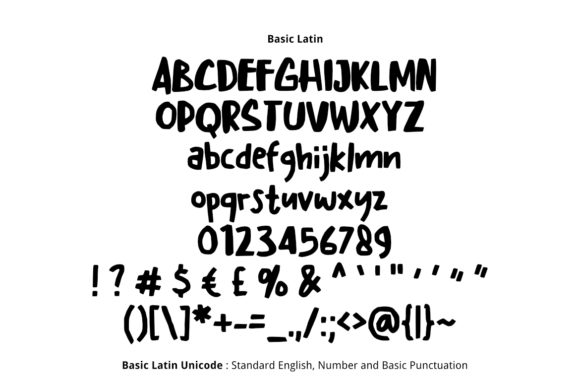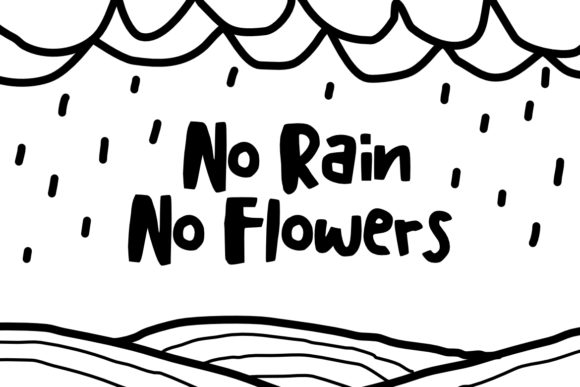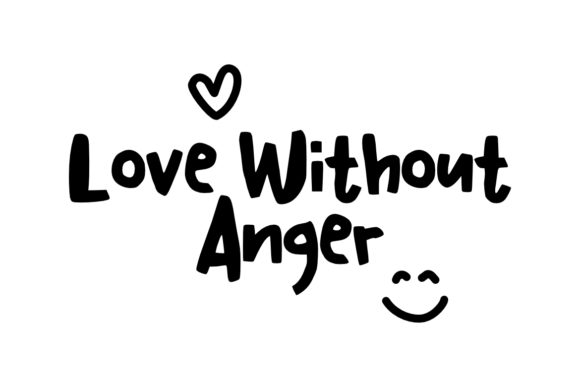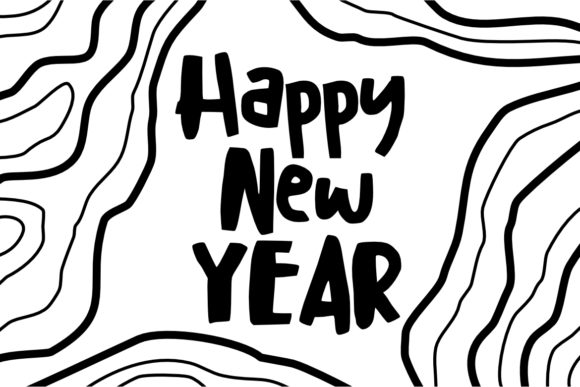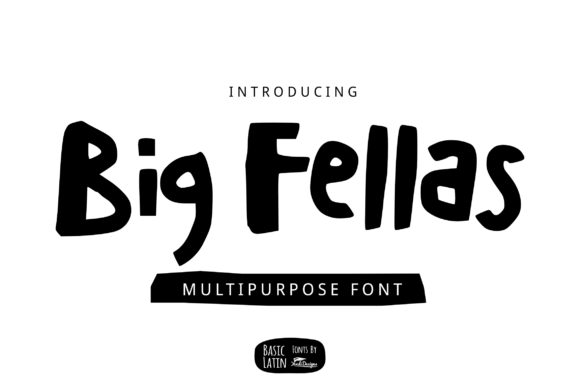
Introducing Big Fellas Font: The Playful Display Font That Will Capture Your Heart
Are you tired of using the same old fonts for your design projects? Look no further! Big Fellas font is here to shake things up with its dynamic and charming display font with a unique twist. This playful font is sure to fall its way into your heart, and you’ll be eager to use it for all your future design endeavors.
The Story Behind Big Fellas Font
Big Fellas font is a carefully crafted typeface designed to bring a touch of playfulness and whimsy to your designs. Its creators aimed to create a font that would stand out from the crowd, with a unique personality that would shine through in any project. And, with its bold and charming appearance, Big Fellas font is sure to do just that.
What Makes Big Fellas Font So Special?
So, what sets Big Fellas font apart from other display fonts on the market? Here are just a few of its standout features:
• Unique Twist: Big Fellas font has a distinctive twist that sets it apart from other fonts. Its letters are designed with a playful flair, giving your designs a touch of personality and whimsy.
• Dynamic Appearance: This font is designed to make a statement, with bold lines and a confident presence that demands attention.
• Playful Feel: Big Fellas font has a lighthearted, carefree vibe that’s perfect for designs that need a bit of humor and wit.
Big Fellas font is a versatile typeface that’s perfect for a wide range of design projects, from:
• Logos and Branding: Use Big Fellas font to create a bold and memorable logo that showcases your brand’s personality.
• Signs and Posters: This font is ideal for eye-catching signs and posters that need to grab attention.
• Social Media Graphics: Add a playful touch to your social media graphics with Big Fellas font.
• Crafting Projects: Whether you’re creating handmade cards, scrapbooking pages, or other crafting projects, Big Fellas font is the perfect choice.
Tips for Using Big Fellas Font
Here are a few tips for getting the most out of Big Fellas font:
• Use it boldly: Big Fellas font is designed to make a statement, so don’t be afraid to use it in bold and eye-catching ways.
• Pair it with contrasting fonts: For maximum impact, pair Big Fellas font with contrasting fonts that provide a clear visual balance.
• Experiment with colors: Big Fellas font looks great in a wide range of colors, so don’t be afraid to experiment and find the perfect hue for your design.
Font Name Big Fellas Font
Author YandiDesigns
In conclusion, Big Fellas font is a dynamic and charming display font that’s sure to capture your heart. With its unique twist, dynamic appearance, and playful feel, it’s the perfect choice for designers and crafters looking to add a touch of personality to their projects. So why wait? Fall in love with Big Fellas font today and take your designs to the next level!